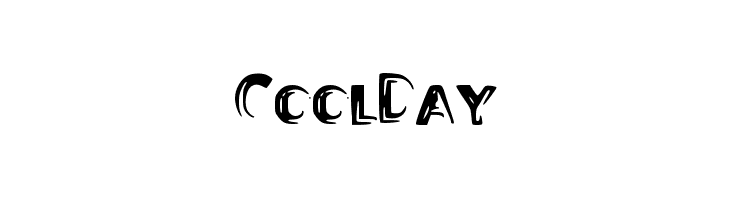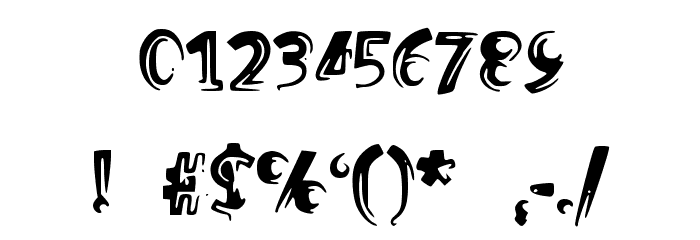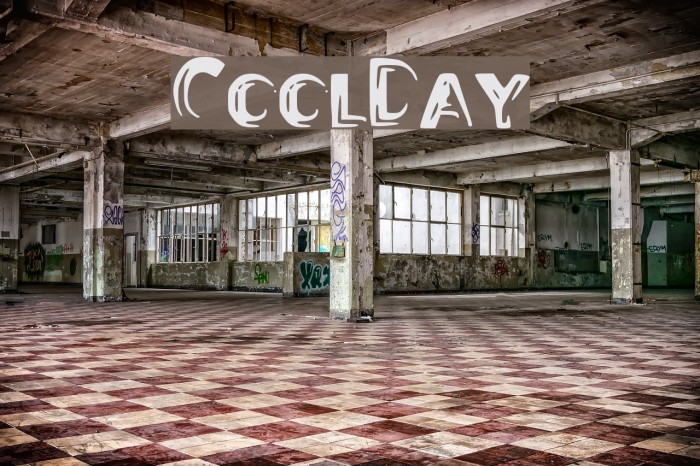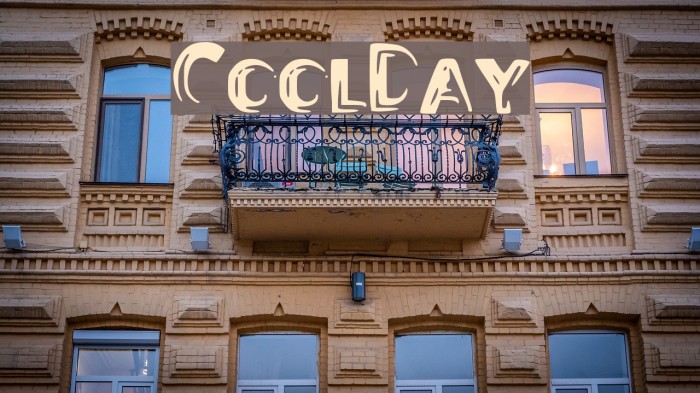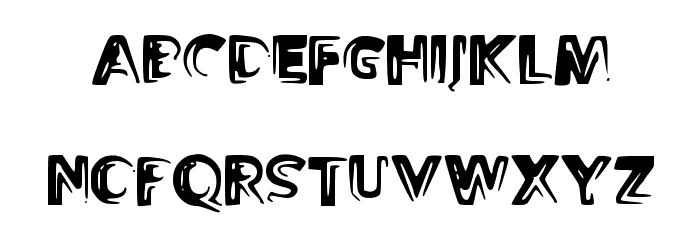
CoolDay Font
This font features a bold and dynamic design with a distressed, grunge-like appearance. The characters have a unique, edgy style with irregular edges and a slightly chaotic feel, making it stand out with its artistic flair. The uppercase and lowercase letters maintain a consistent theme, with numbers and special characters following suit. The overall look is modern and eye-catching, perfect for projects that require a strong visual impact. The font's design suggests movement and energy, ideal for creative and unconventional applications.
A bold, distressed font with an edgy, grunge-like style.
• Proposed Projects: Ideal for music album covers, posters, urban-themed designs, and creative branding projects.
• Overall Style: Modern, Grunge
• Use Case: Headlines, Logos, Posters